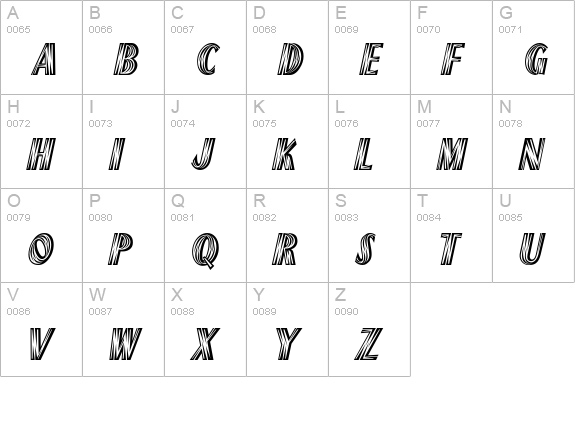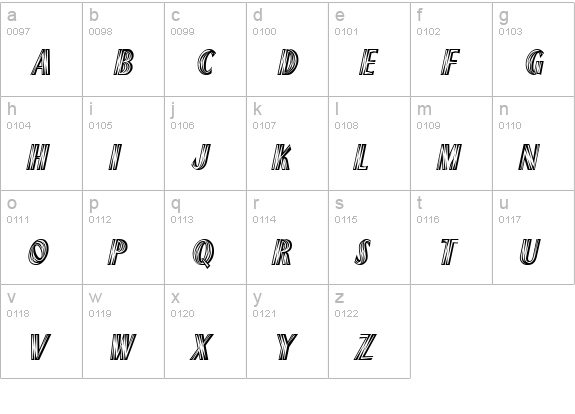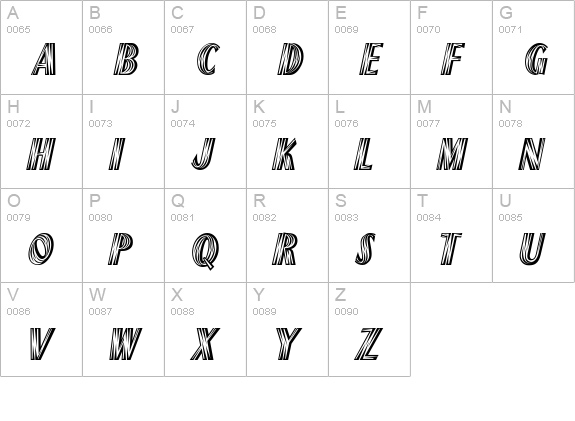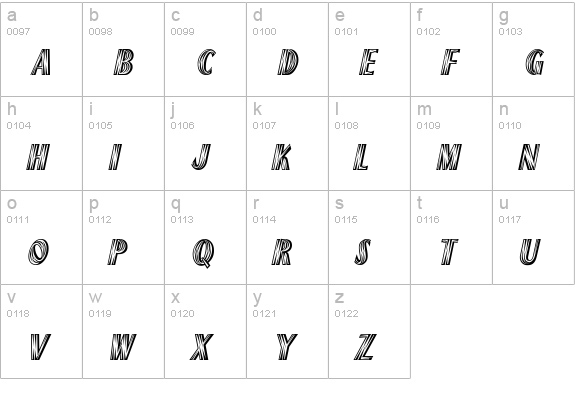
PlankCondensed Italic Font Details
PlankCondensed Italic is a distinctive, italic variant in the PlankCondensed typeface family \xE2\x80\x94 well suited to design and typography projects.
PlankCondensed Italic is a stylish and modern font that effortlessly combines elegance and versatility. Its condensed form adds a touch of sophistication to any design, while the italic style adds a sense of flair and dynamism. This font is perfect for creating eye-catching headlines, captivating logos, and stunning graphic designs. With its clean lines and graceful curves, PlankCondensed Italic stands out from the crowd and commands attention. The condensed nature of the font allows for maximum impact in limited space, making it an ideal choice for projects that require a compact yet impactful typography. Whether you're designing a magazine layout, a poster, or a website, this font will add a touch of professionalism and refinement to your work. Best of all, PlankCondensed Italic is completely free! You can download this font at FontsMarket.com, a trusted source for high-quality fonts. With its generous licensing terms, this font can be used for both personal and commercial projects without any restrictions. Whether you're a professional designer or a hobbyist, PlankCondensed Italic will elevate your creations to new heights. Don't miss out on this opportunity to enhance your designs with PlankCondensed Italic. Download it for free today at FontsMarket.com and unlock a world of creative possibilities. Let this font be the secret weapon in your design arsenal, making your projects shine with its contemporary elegance and captivating style.